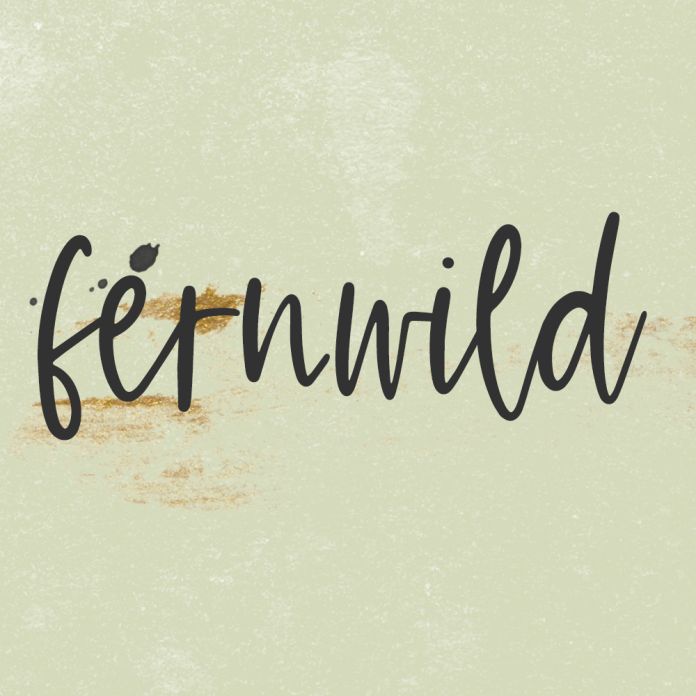
Introducing Fernwild, a modern script. Fernwild features neat, crisp characters.
Fernwild is best for:
- feminine, crafty projects with your Silhouette machine, or your SVG design business